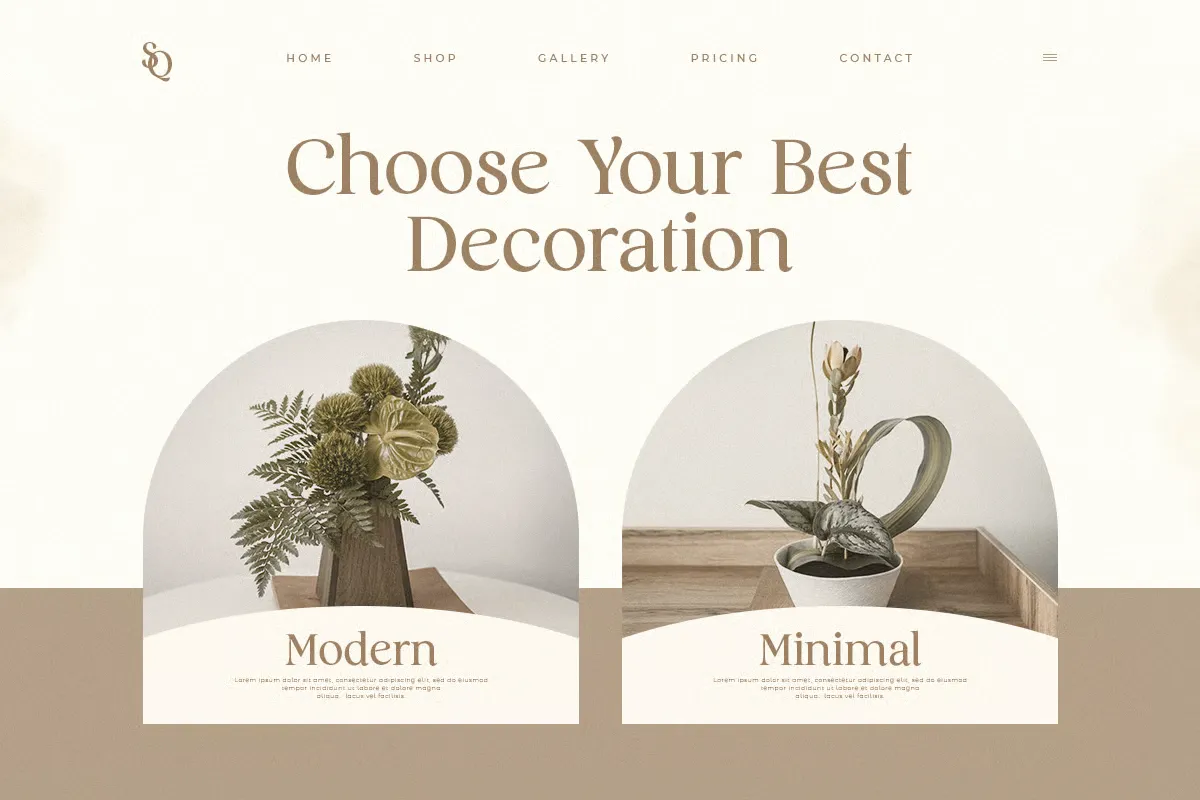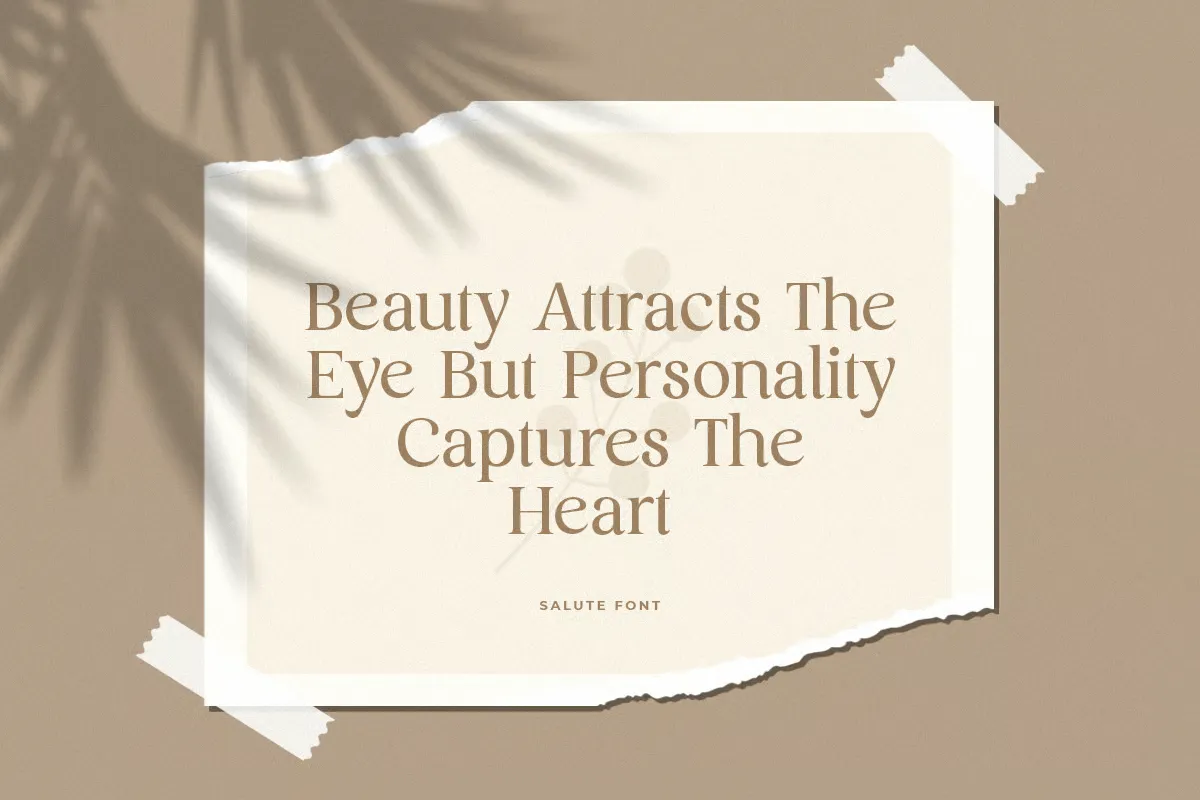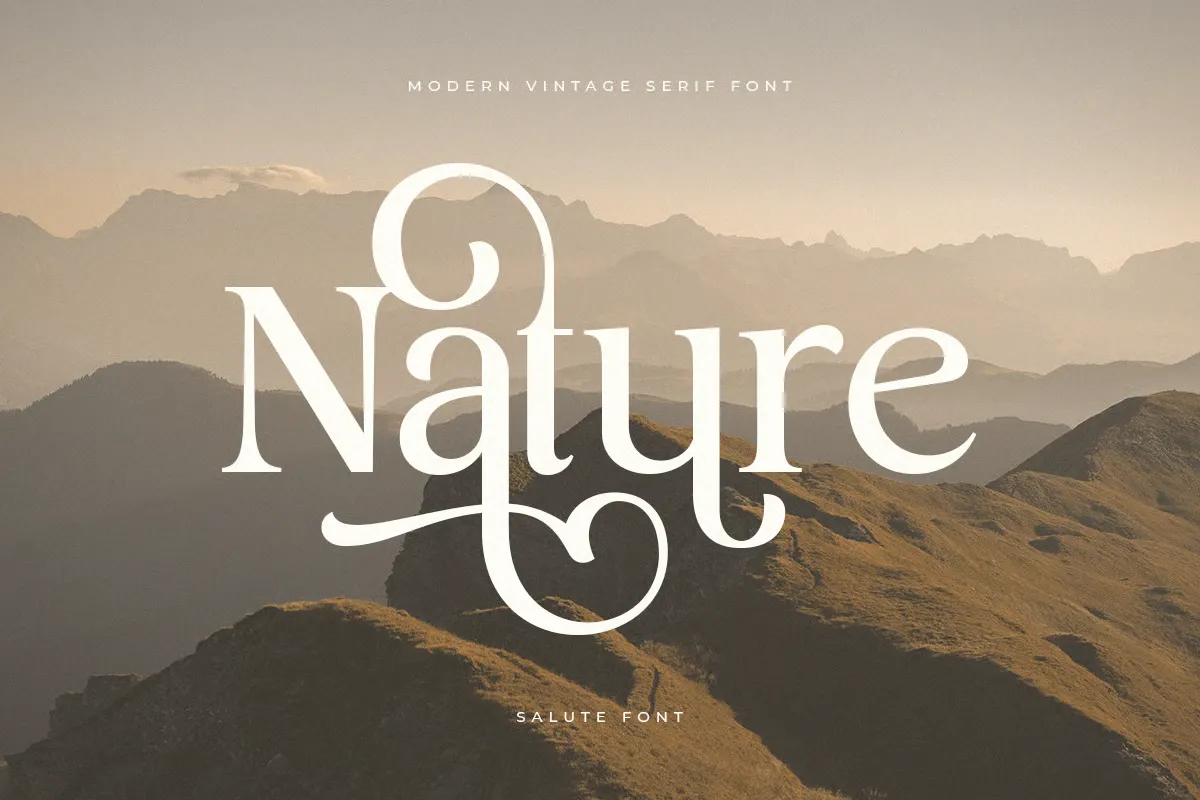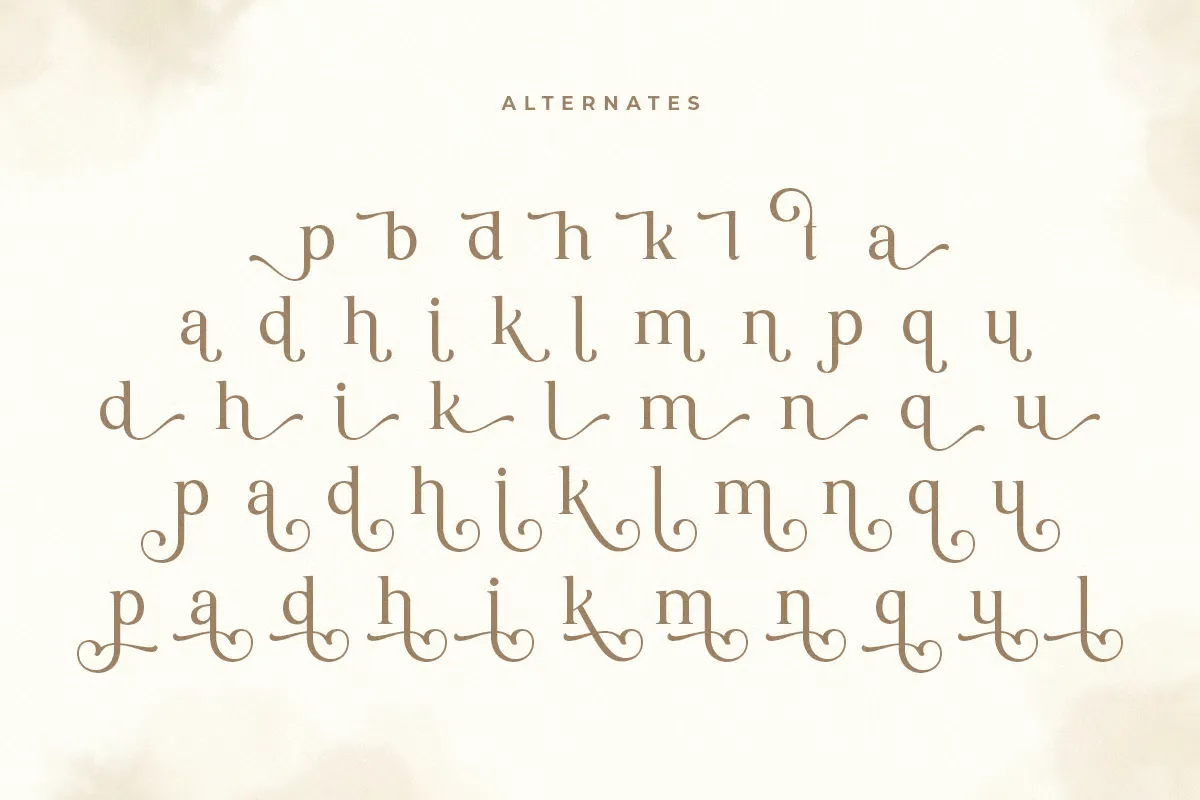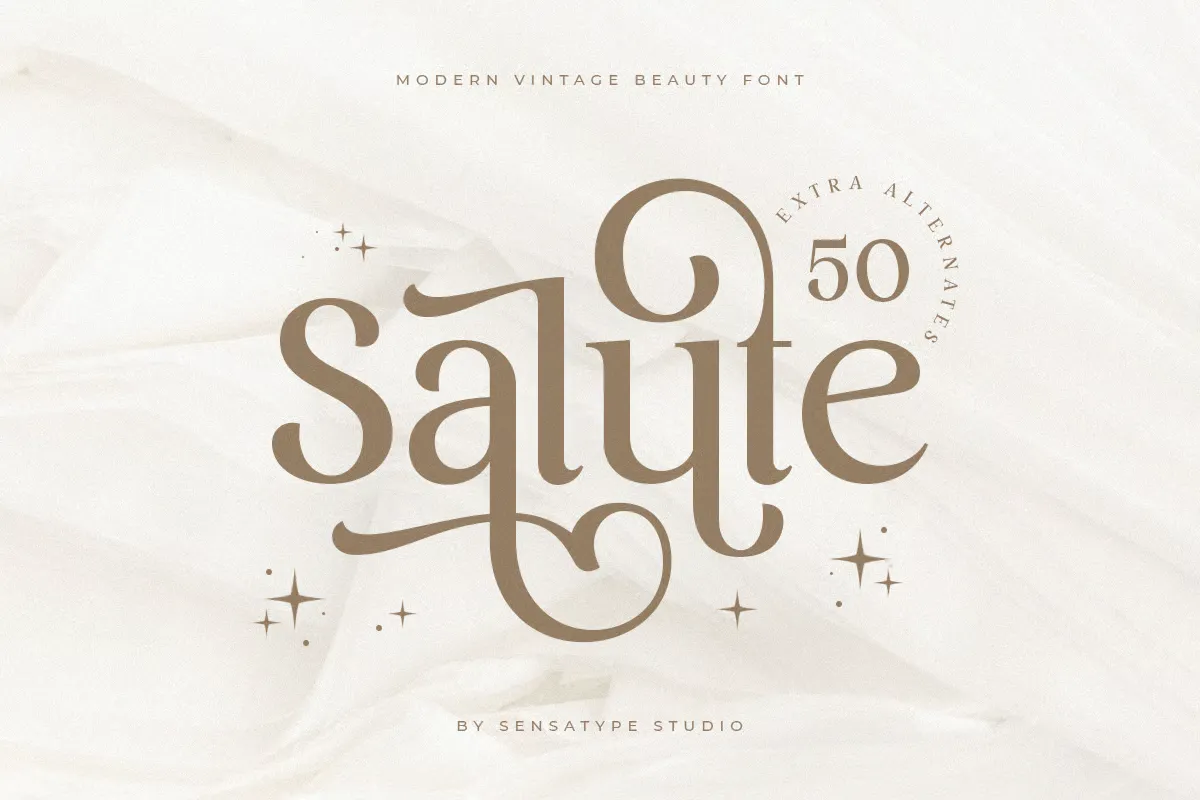
Salute Font
About Salute Font
As a graphic designer and typographer, I’m always exploring new tools that elevate my branding work. While working on a recent project, I came across the Salute Font. I found it while looking for a modern vintage typeface that felt elegant without being overly polished. The second I saw the character preview, I knew it would fit the aesthetic I was after—bold, beautiful, and full of personality.
I used it for a fashion label’s logo and supporting brand visuals. The results were impressive. The text instantly carried emotion and charm, and the client loved how it brought the brand to life.
Salute Font is a modern vintage beauty font made by Sensatype, a type designer known for high-quality, professional typography tools. This typeface blends soft curves with stylish alternate characters, giving it a unique presence. The font was created with branding in mind. Every letter is crafted to help designers create standout visuals with ease.
The attention to detail is clear. It includes lowercase and uppercase letters, swashes, and alternates. These let you create unlimited variations that match any branding needs. You’ll find it available in .otf, .ttf, and .woff file formats. Each format is optimized for smooth use across platforms. The character map and preview options help plan your layout before you even start.
Whether you’re designing for fashion, cosmetics, or luxury products, this font adds a refined but bold edge. With its modern feel, it’s not just about style—it’s a tool that’s ready to add value to your creative work. If you need a type that’s both expressive and versatile, Salute won’t disappoint.
Where can you use this font?
The Salute Font is built for brand storytelling. It fits perfectly in logos, product packaging, and editorial layouts. I’ve used it in a fashion campaign where the brand needed something elegant yet modern. The unique characters helped define the tone of the brand. Its alternate characters gave me options to make subtle design tweaks while keeping the overall aesthetic clean.
It also works well in web design. Since the font comes in web-ready formats like .woff, it displays beautifully on digital platforms. You can use it for banners, hero text, or headers where you want the type to do more than just communicate—it should create an impression.
Salute is also ideal for typography-based graphics. Its file contents include enough stylistic options that make it feel like a mini design toolkit. You can craft social media graphics, product labels, or marketing materials that feel curated and premium.
Pair it with high-quality images, and the results are even better. It’s a smart choice for brands that want to look modern and ready for the spotlight. Whether you’re designing for beauty, lifestyle, or high-end products, this font is a great solution to make your design stand out.